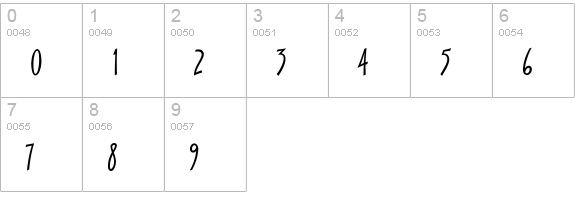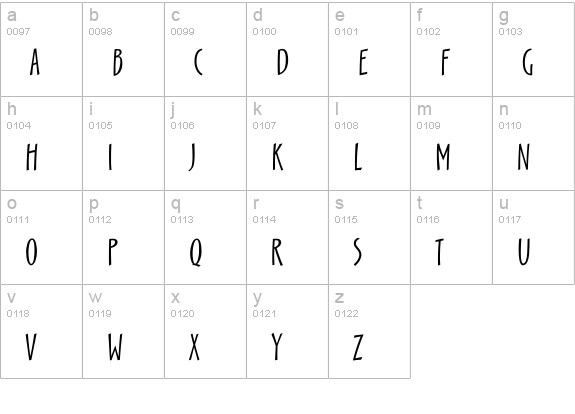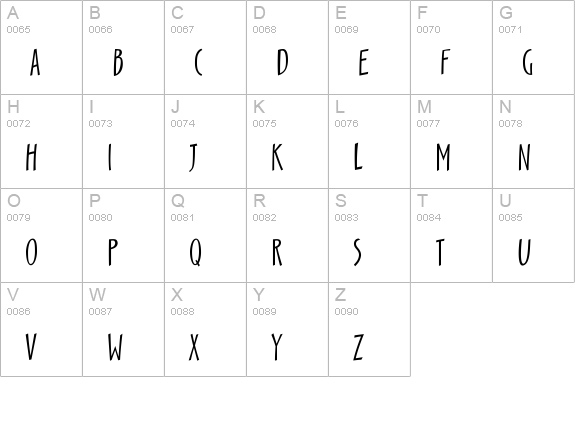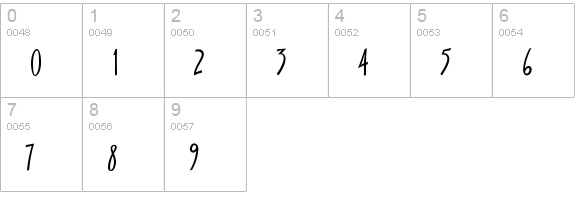
ScampRegular Font Details
ScampRegular font is a versatile typeface that exudes a playful and youthful charm. Its smooth curves and rounded edges add a touch of whimsy to any design project. This delightful font is perfect for creating eye-catching headlines, attention-grabbing logos, or captivating social media posts. With its clean and legible characters, ScampRegular font ensures that your message is communicated with clarity and style. Whether you're designing a children's book, a website for a fun-filled event, or a cheerful greeting card, this font is sure to bring a smile to your audience's faces. What makes ScampRegular font even more appealing is that it is freely available to download at FontsMarket.com. This means that you can add a dash of creativity to your projects without breaking the bank. Whether you're a professional designer or a hobbyist, this font provides an accessible and cost-effective solution for all your typographic needs. So why wait? Download ScampRegular font today and let your imagination run wild. Whether you're looking to add a touch of whimsy to your designs or inject some fun into your branding, this font is sure to captivate your audience and leave a lasting impression. Embrace the playful spirit of ScampRegular font and watch your creations come to life!